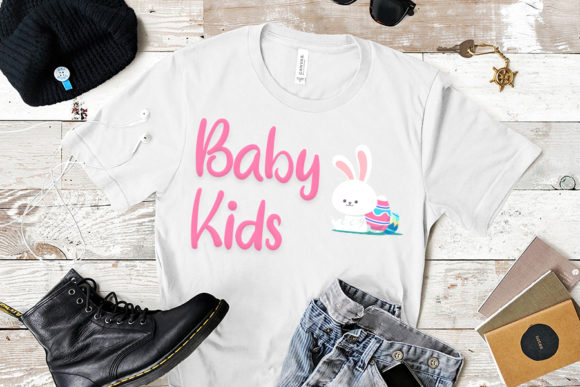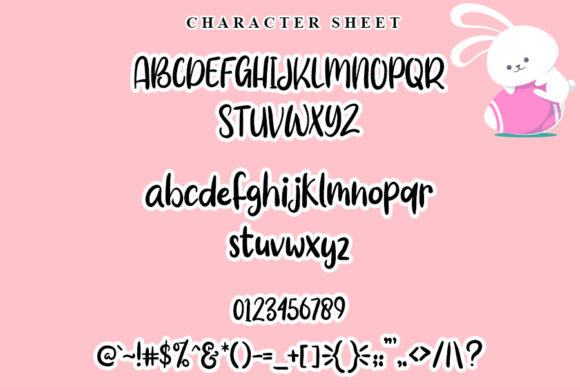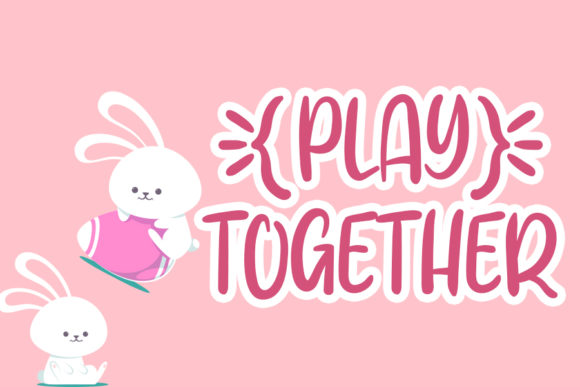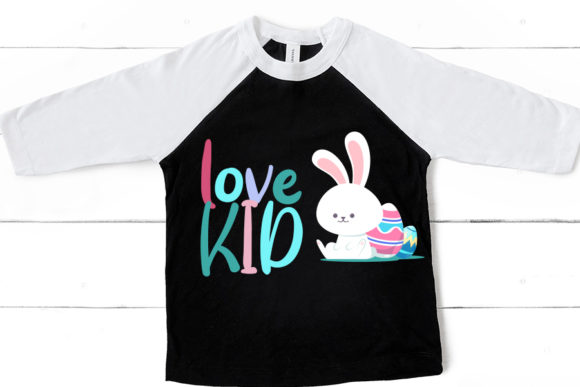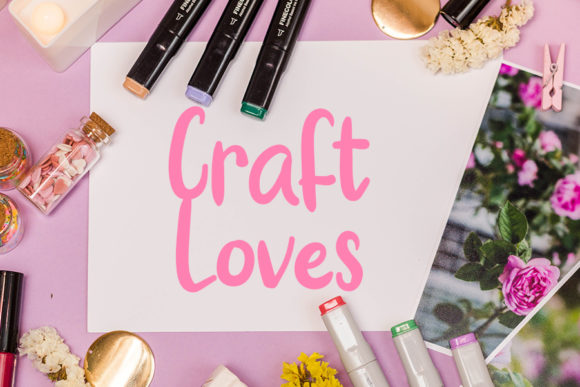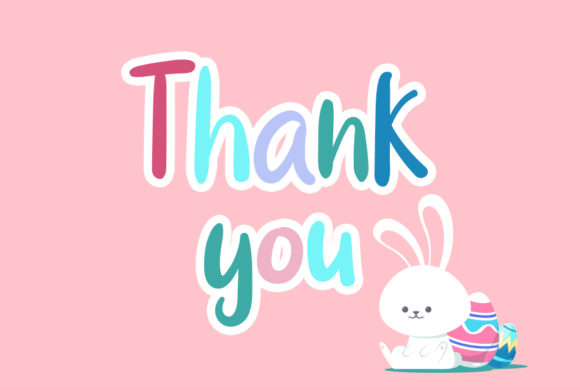
Introduction to Daily Rabbit Font
As a designer, there’s nothing quite like the rush of discovering a new font that perfectly captures the essence of your creative vision. It’s like stumbling upon a hidden treasure that elevates your design from ordinary to extraordinary. For me, that moment came when I discovered the Daily Rabbit Font – a stylish and delicate handwritten font that’s as charming as it is versatile.
With its flowing and smooth vibe, the Daily Rabbit Font is a game-changer for designers looking to add a touch of whimsy to their projects. Whether you’re working on a children’s themed design or a creative project that requires a high-quality font, this font is sure to impress. Plus, with a transparent background option, you can easily customize it to fit your design needs.
Key Features of Daily Rabbit Font
- High-quality design: This font boasts a unique, high-quality design that is perfect for a variety of applications, from print to digital media.
- Unique character set: This font features a unique character set that includes a range of special characters and glyphs, making it perfect for creative projects that require a touch of personality.
- Perfect for creative projects: Daily Rabbit Font is a versatile design resource that is perfect for use in a wide range of creative projects, from graphic design to digital art.
Honest Review: Daily Rabbit Font
I recently came across the Daily Rabbit Font, a design resource that has been gaining popularity among creatives. After trying it out, I’m excited to share my honest review with you.
What works well: ✨ I was impressed by the high quality of the font, with crisp and clear lines that make it perfect for both digital and print projects. The font is also highly customizable, allowing you to adjust the size, color, and even add effects to make it stand out. Additionally, the transparent background feature is a great touch, making it easy to layer the font over any background image or color.
What doesn’t work so well: ⚠️ While the font is generally easy to use, I did encounter some issues with compatibility on certain platforms. I also wish the font had more variations, as it can get a bit repetitive when using it extensively.
- High-quality design with crisp and clear lines
- Customizable size, color, and effects
Design Resource Tips
To get the most out of the Daily Rabbit Font, try using it as a design resource for creative projects, such as logos, posters, and social media graphics. You can also combine it with other design elements to create a unique and eye-catching look.
The Daily Rabbit Font is perfect for a variety of design projects, including:
– Logos
– Posters
– Infographics